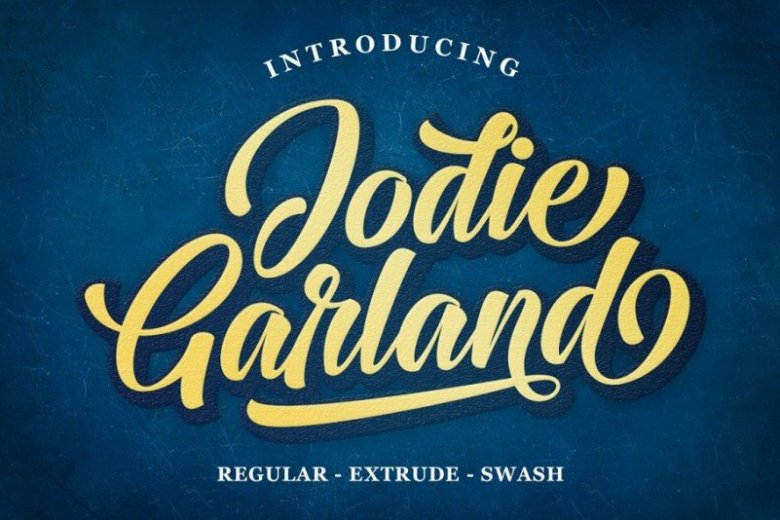
Jodie Garland Calligraphy Font
Jodie Garland calligraphy Inspired by Retro style and combination with Handwriting style. Jodie Garland Script has many alternative swash and features like stylistic alternatice, stylistic set, ligature and swash so you can mix and match as you wish.
Jodie Garland calligraphy comes with open type features such as alternative styles, style sets & great features for logos, posters, badges, book covers, t-shirt designs, handwritten quotes, product packaging, headers, posters, merchandise, social media & greeting cards.